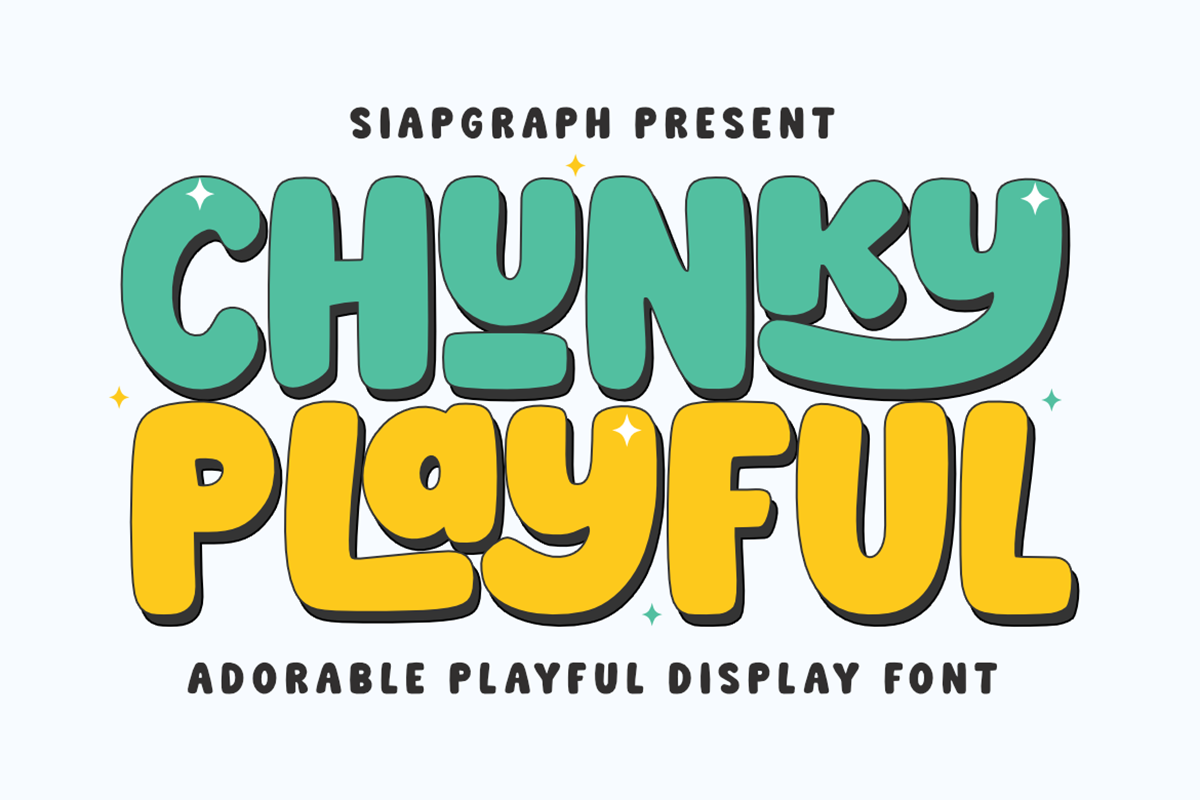
Chunky Playful – Bubble Font is an adorable bubbly display font inspired by the soft, rounded shapes of retro pop culture and cheerful childhood snacks. This typeface features bold, thick strokes and a friendly, energetic personality designed to bring an instant sense of joy and warmth to your creative projects.
This font is a must-have for the Craft, POD (Print On Demand), and DIY communities. Its smooth outlines and high-readability structure are meticulously crafted to ensure a perfect experience for vinyl cutting, sublimation, and high-quality digital printing.